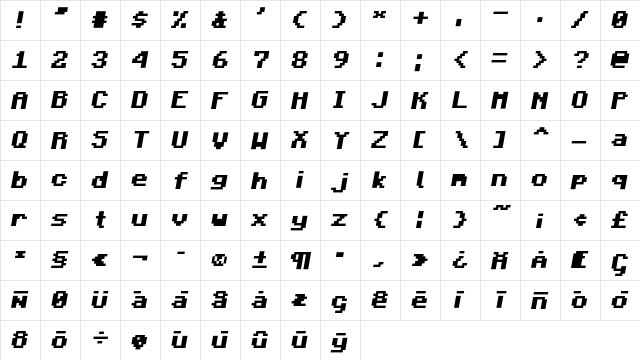
Minecraft Bold Italic
Design Context for Minecraft Typeface
Minecraft is a composed and adaptable typeface that performs quietly and consistently across a wide range of design contexts. The slanted form adds forward momentum and visual energy. Its bold stroke weight gives it real presence on the page.
Pro Tip: Use Minecraft for emphasis, pull quotes, and subheadings where its slanted energy can add rhythm to the layout.